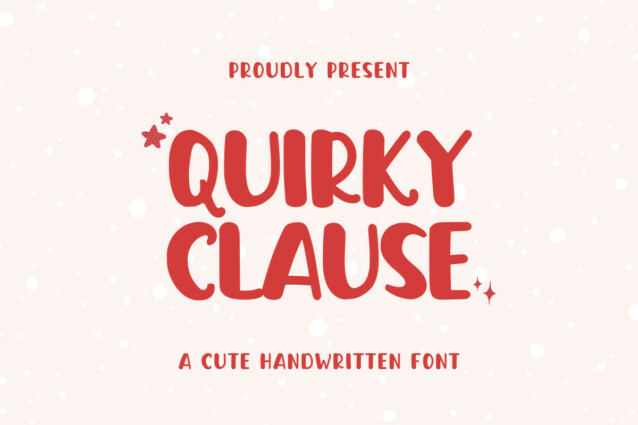
Quirky Clause Display Font
Quirky Clause Display Font is a childish, easy-to-read display font that conveys impeccable friendliness. Whether you’re using it for crafts, digital design, presentations, or making greeting cards, this font has the potential to become your favorite go-to font, no matter the occasion!